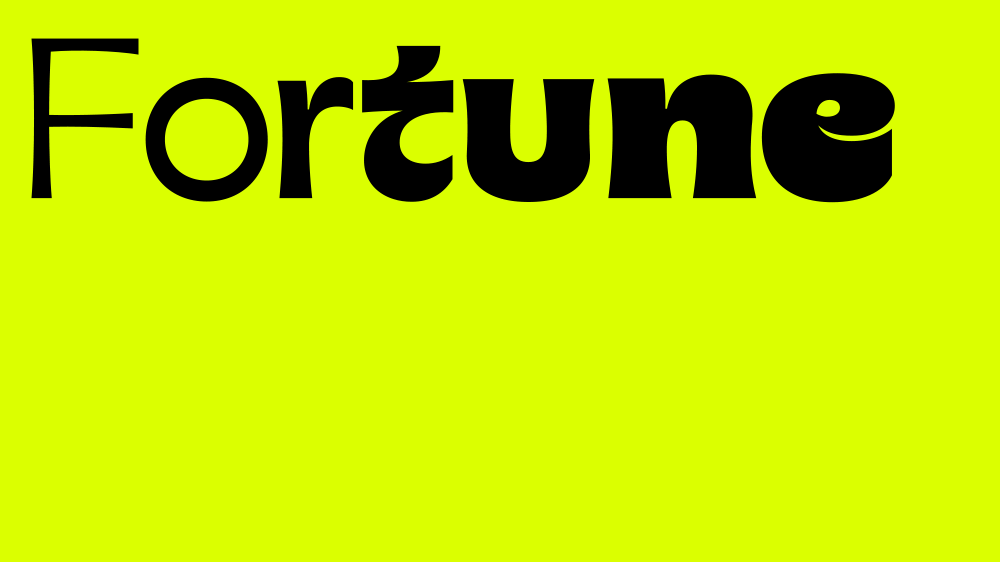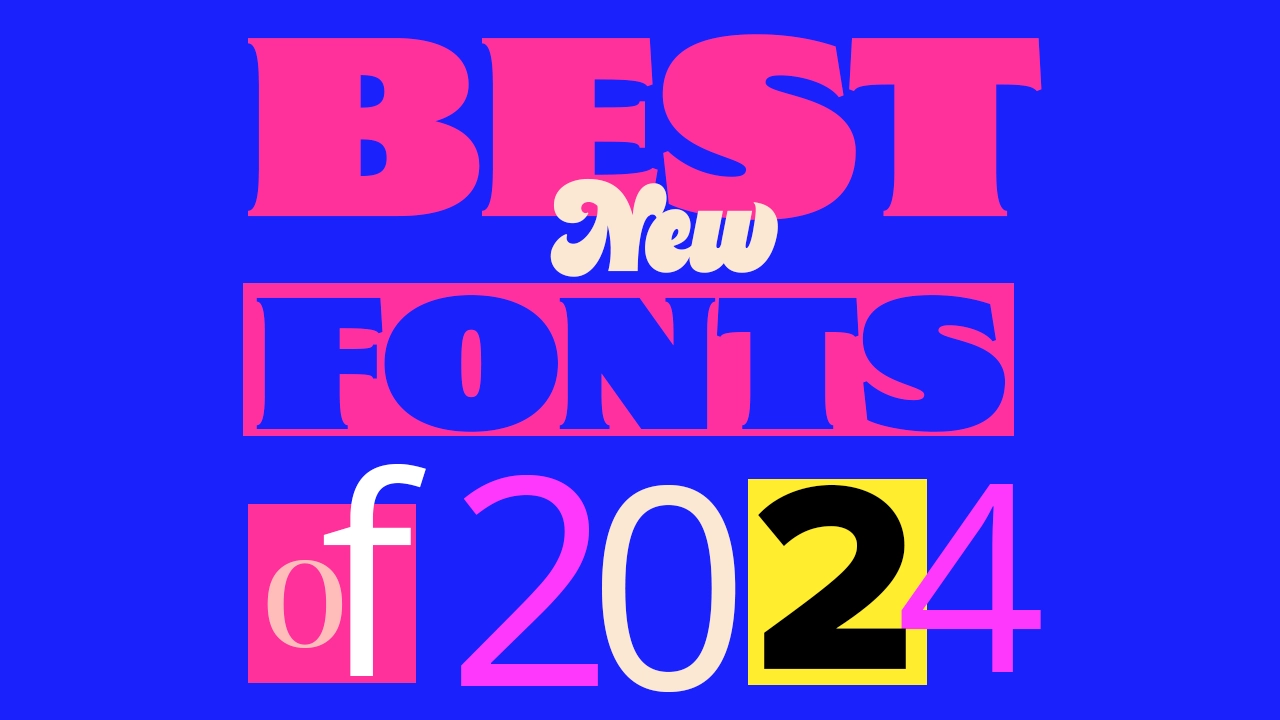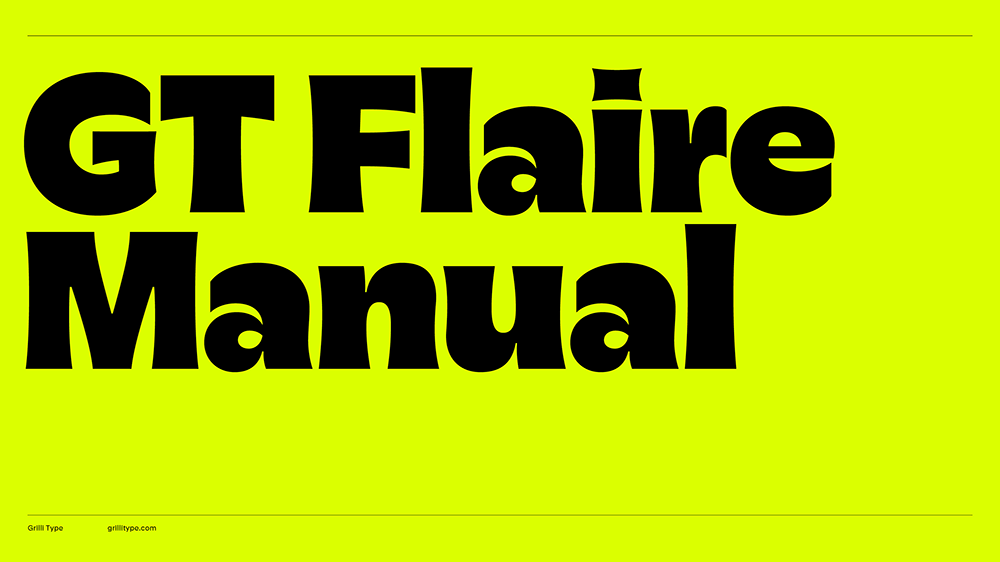
The best new typefaces of 2024, according to the experts
Picked out by some of the best typographers in the industry.
Typography trends of 2024 have been all about shifting away from Swiss-inspired, minimalist designs and introducing more colourful, eccentric typefaces. We’ve seen typefaces inspired by illustration, and have even started to see an increasing amount of conceptual typography more concerned with its shape than legibility.
It looks like we’re ending 2024 with exciting type concepts on the horizon of the design industry, with designers daring to go out of their comfort zones more and edge away from the basics. Individuality is becoming more celebrated, and contentious, ‘anti-design’ concepts appear to be inspiring a great deal of work.
To put together the best fonts of 2024, we’ve interviewed five designers and got their take on the best fonts that have emerged in 2024. Our font professionals are leaders in the industry, from working with brands like Monotype, Adobe and Mustang, to even having had a hand in creating the fonts we use everyday.
01. Proxima Nova
Proxima Nova was first choice for Steve Matteson, former creative type director of Monotype and founder of Matteson Typographics. With the addition of Arabic and Hebrew scripts, “this hugely popular design now has a global reach, which I think is really wonderful,” says Steve.
Steve also points out the divide in typefaces available in Latin fonts in contrast to non-Latin fonts – and that when using Latin and non-Latin language together, “such as on medical records or packaging,” different fonts have to be used for each language. Proxima Nova fills this void. Steve appreciates the comfort "to know that if you’re a creative working for a global brand you have the opportunity to work with all these other languages”.
02. GT Flaire
“Grilli Type is always smashing it out of the park,” and has done with GT Flaire, designed by Reto Moser, says Kyle Wilkinson, director of Haus of Thrills. GT Flaire is a large family available in both serif and sans serif, an unusual choice for a font foundry and one that signifies a shift in graphic design beginning to move towards high-contrast designs. The fonts put out by Grilli Type always “stand out the most,” says Kyle. “They’re more useable and can be used in more projects, rather than only being a very specific look that is only right for one very niche project.” This ethos is evident in GT Flaire’s wide and varied display family.
03. Madcap
Madcap is a playful font that fills a gap in the market needed for professionally made fonts designed for less serious projects. Steve told us that both him and Mark Simonson usually work with global brands such as Microsoft and Google, meaning that a chance to create something fun like Madcap is always a relief. “When we’re not working on really serious designs we like to work on lettering we started when we were kids,” says Steve. Madcap has been in the works for years.
04. Nebulica
Display font Nebulica, is “super futuristic,” says Izzy Poirer, an established brand designer who runs the Ottawa Design Club and hosts livestreams for Adobe. She believes that the increase of AI is causing “a lot of congregation of worlds”, in design. “I’ve been seeing the same with fonts,” she says. “It’s either super vintage or super futuristic.” Nebulica echoes this trend with its grotesque strokes combined with occasional curves and serifs, and then contrasted once more with harsh lines cutting some of the curves off the top of the letters.
05. Gertie
Gertie is reminiscent of early letterpress type styles used on posters and in magazines. In line with Mark Simonson’s current style of retro fonts, it was another one of those unfinished childhood projects, evident from the energy in the serifs. Steve praised Gertie as a successful font of this year, and following a chat he had with Mark in the summer, Steve says he gets "the sense that these [fonts] are reaching back to his days in the ‘70s and early ‘80s."
06. Highmore
Highmore is Steve’s invention and was inspired by painted sign lettering that was created in 1933 for the Chicago World Premiere. “I love looking at those early inspirational letterforms and making a typeface out of it,” says Steve. In this way, Highmore is almost a nod of respect and acknowledgement to those designers who once created everything by hand. Steve himself follows this example by always using pencil in his font creation, so for those who love old-fashioned fonts that represent the very beginning of typography, Highmore is the perfect choice.
07. Polymath
Polymath brings a little more personality to your run-of-the-mill grotesque typeface, which makes it especially ideal for branding. Kyle loves it “because of its versatility,” adding to its potential wide utility in professional projects, where instead of choosing one display and one body font, you can just choose Polymath to cover all bases. “It can be used in professional projects, but it can also be used in something that requires a little more character as well,” says Kyle.